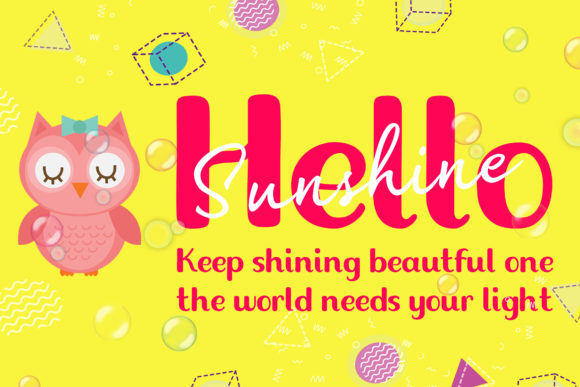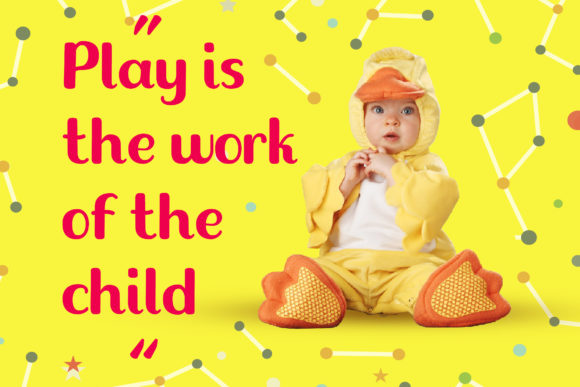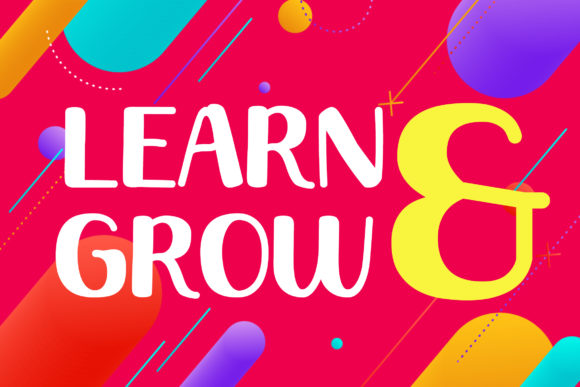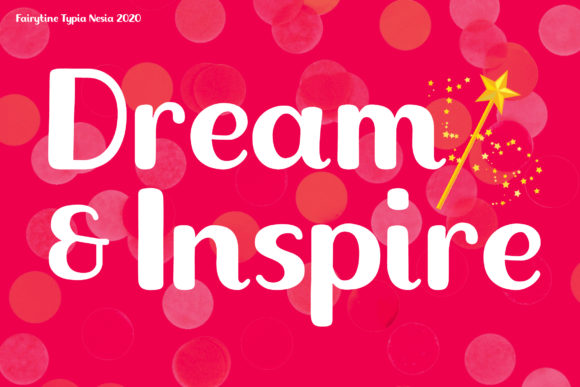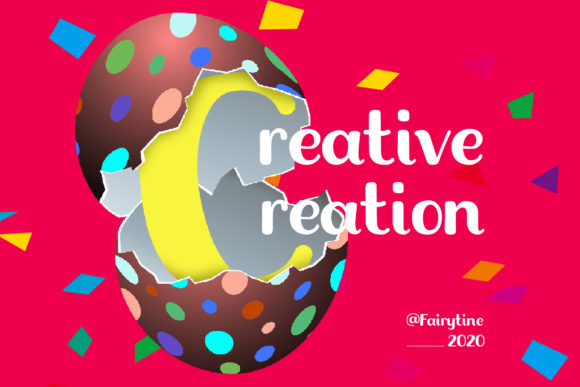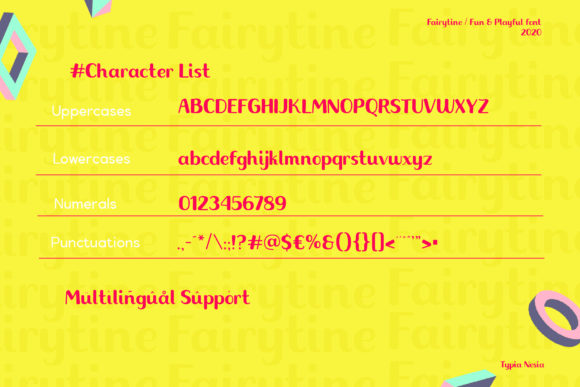
Introducing Fairytine Font: The Ultimate Display Font for Creative Designs
Are you tired of using the same old fonts for your creative projects? Look no further than Fairytine Font, a fun and joyful display font that’s sure to brighten up each of your designs. With its friendly and trendy vibe, Fairytine is the perfect addition to any designer’s toolkit.
What Makes Fairytine Font So Special?
Fairytine Font is a unique and eye-catching display font that’s designed to add a touch of whimsy and playfulness to your designs. Its fun and curly lines make it perfect for projects that require a bit of personality and flair. Whether you’re designing a logo, a poster, or a social media graphic, Fairytine is sure to make your design stand out from the crowd.
Key Features of Fairytine Font
- Fun and Joyful Design: Fairytine Font is designed to bring a smile to your face. Its playful and curly lines make it perfect for designs that require a bit of whimsy and personality.
- Friendly and Trendy: Fairytine has a friendly and approachable vibe that’s perfect for designs that need to connect with your audience.
- High-Quality Design: Fairytine Font is designed with high-quality craftsmanship in mind. Its crisp and clean lines ensure that your designs look professional and polished.
- Easy to Read: Despite its playful design, Fairytine Font is easy to read and understand, making it perfect for designs that require a clear and concise message.
Fairytine Font is perfect for designers and crafters who want to add a bit of personality and whimsy to their projects. Whether you’re designing a logo, a poster, or a social media graphic, Fairytine is sure to make your design stand out from the crowd.
Use Cases for Fairytine Font
- Logos and Branding: Fairytine Font is perfect for logos and branding projects that require a bit of personality and whimsy.
- Posters and Flyers: Fairytine is great for posters and flyers that need to grab attention and make a statement.
- Social Media Graphics: Fairytine Font is perfect for social media graphics that require a bit of personality and flair.
- Packaging and Labels: Fairytine is great for packaging and labels that need to stand out on store shelves.
Tips for Using Fairytine Font
- Use it Sparingly: Fairytine Font is a display font, so use it sparingly to make a big impact.
- Pair it with Other Fonts: Fairytine pairs well with other fonts, so don’t be afraid to experiment with different combinations.
- Experiment with Colors: Fairytine Font looks great in a variety of colors, so don’t be afraid to experiment and find the perfect hue for your design.